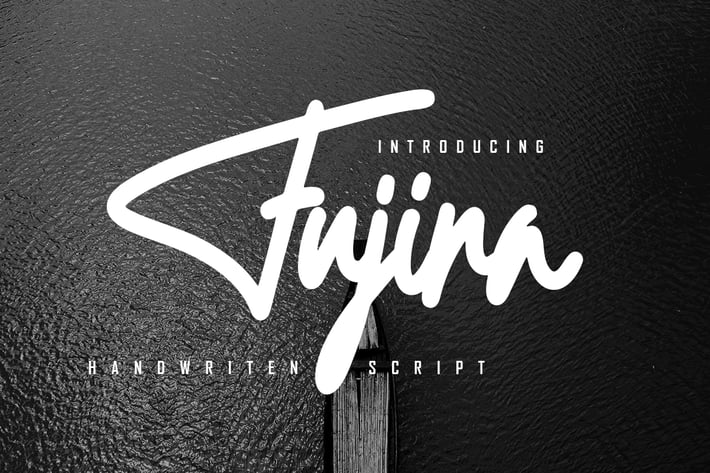
Fujira - Handwritten Font
Fujira Signature is a flowing handwritten font, described by an elegant touch, perfect for your favorite projects. Fall in love with its incredibly distinct and timeless style and use it to create spectacular designs!
+ Basic Latin Language Support (AÀÁÂÃÄÅCÇDÐEÈÉÊËIÌÍÎÏÑOØÒÓÔÕÖUÙÜÚÛWYÝŸÆß )